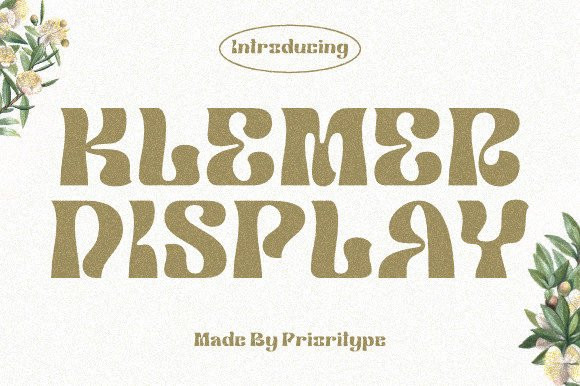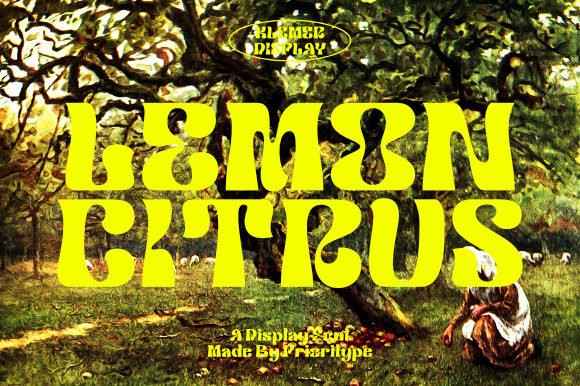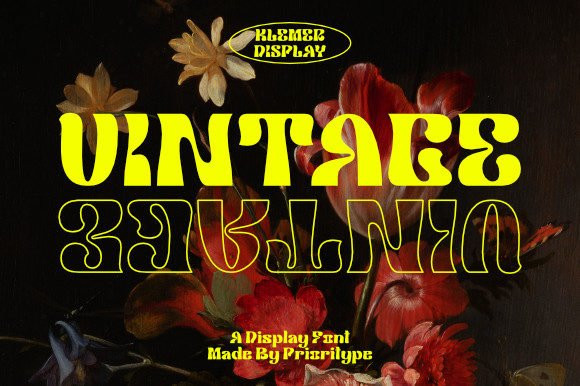
Klemer Font
Klemer is a wavy, whimsical and thick lettered display font. No matter the topic, this font will be an incredible asset to your fonts’ library, as it has the potential to elevate any creation.